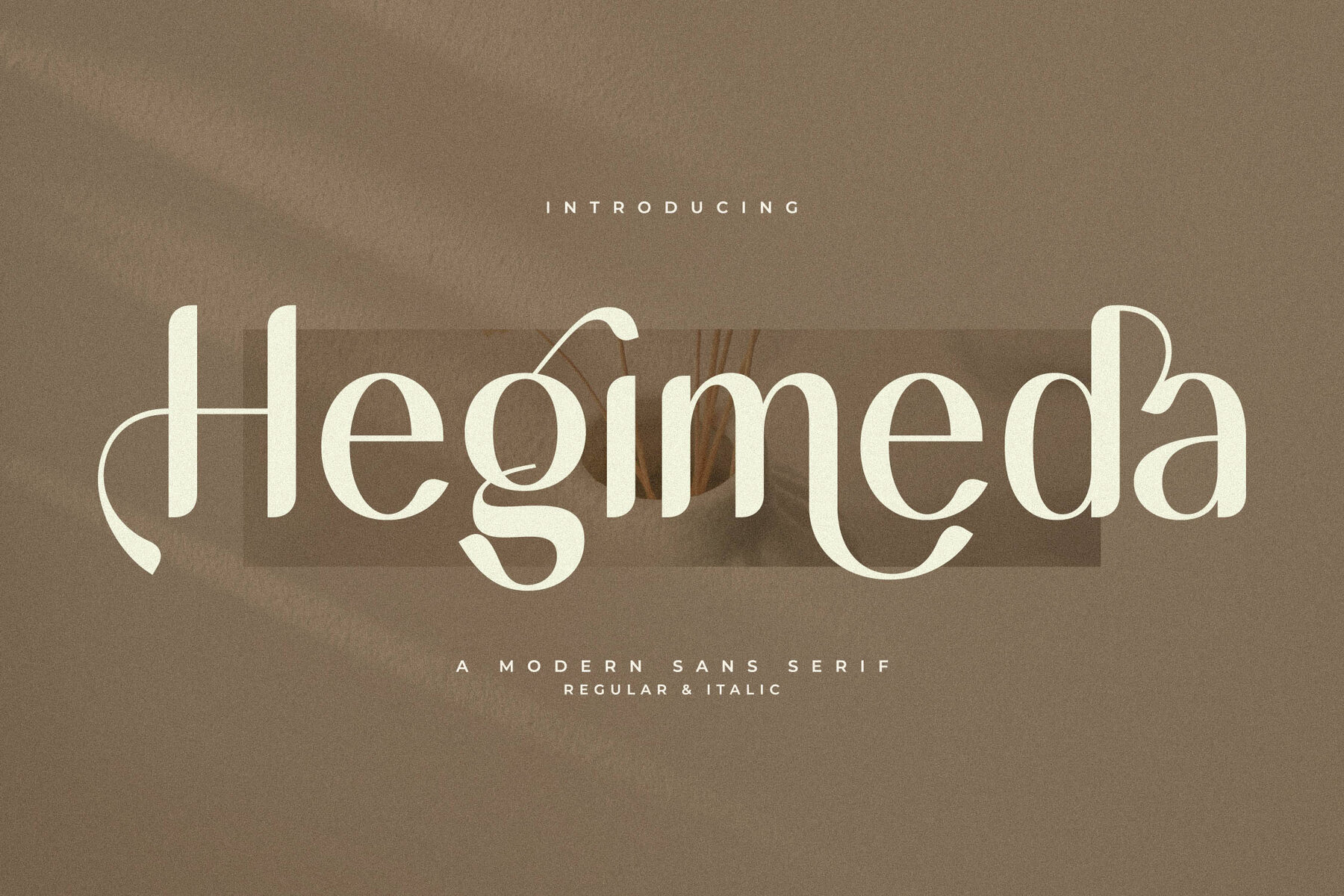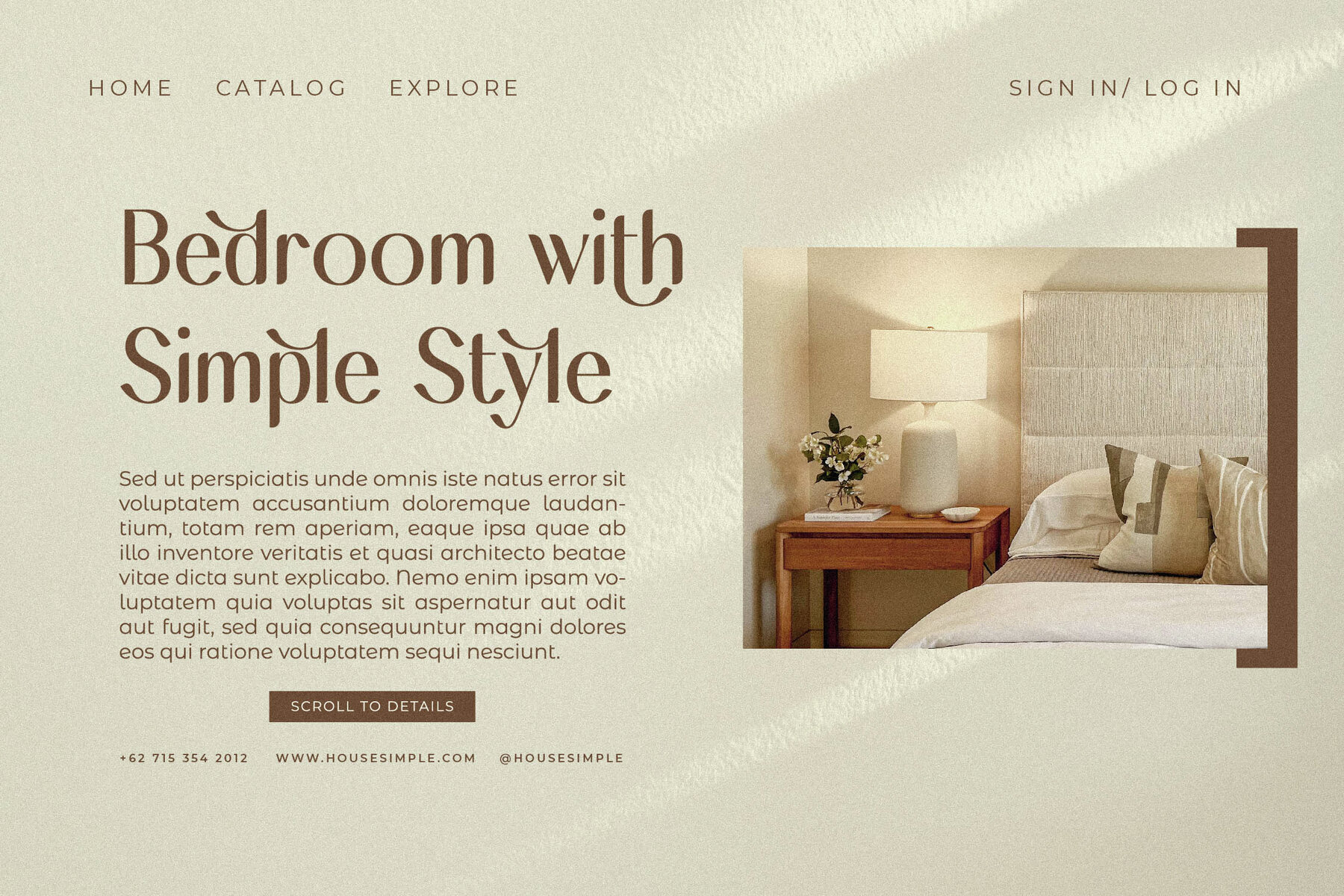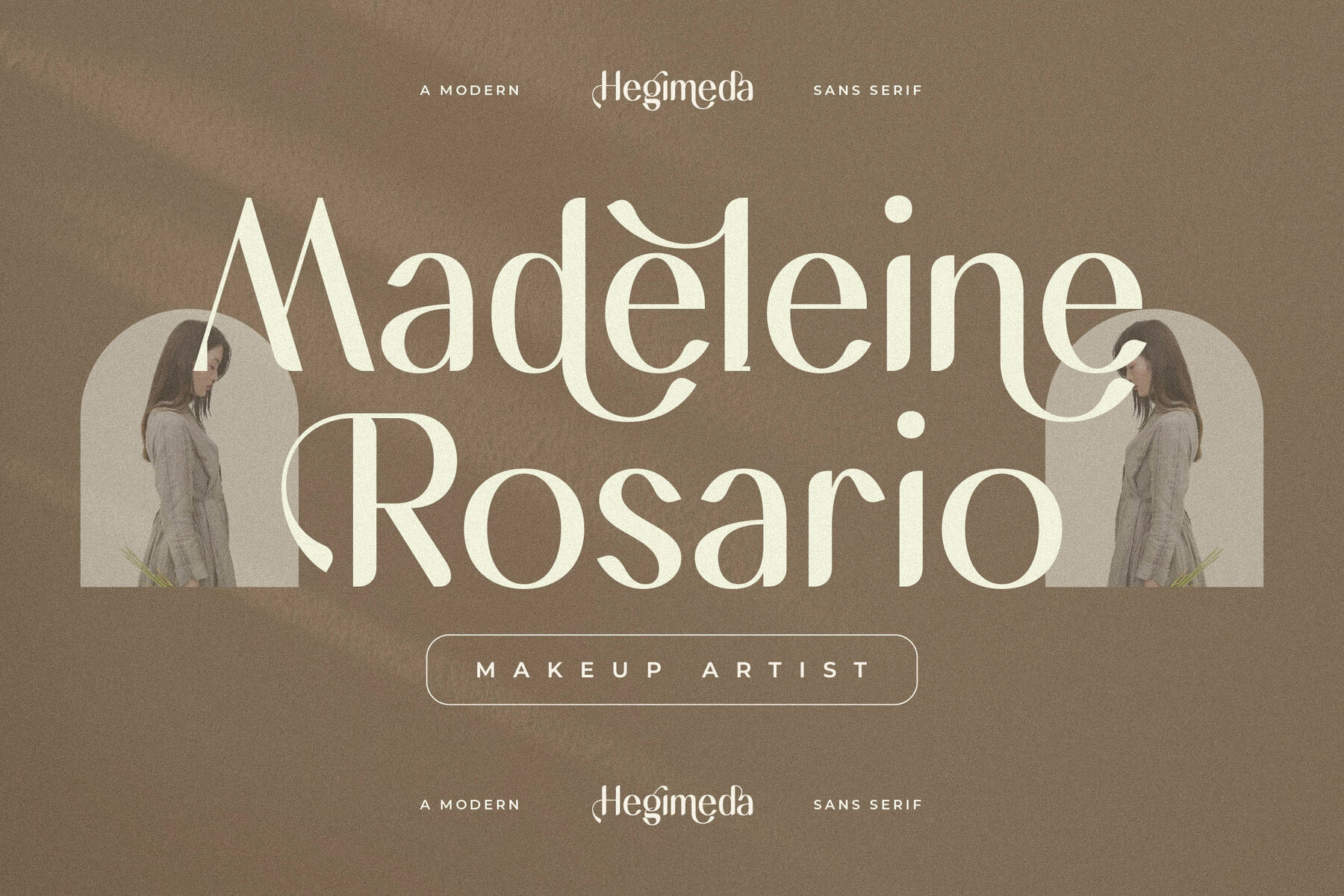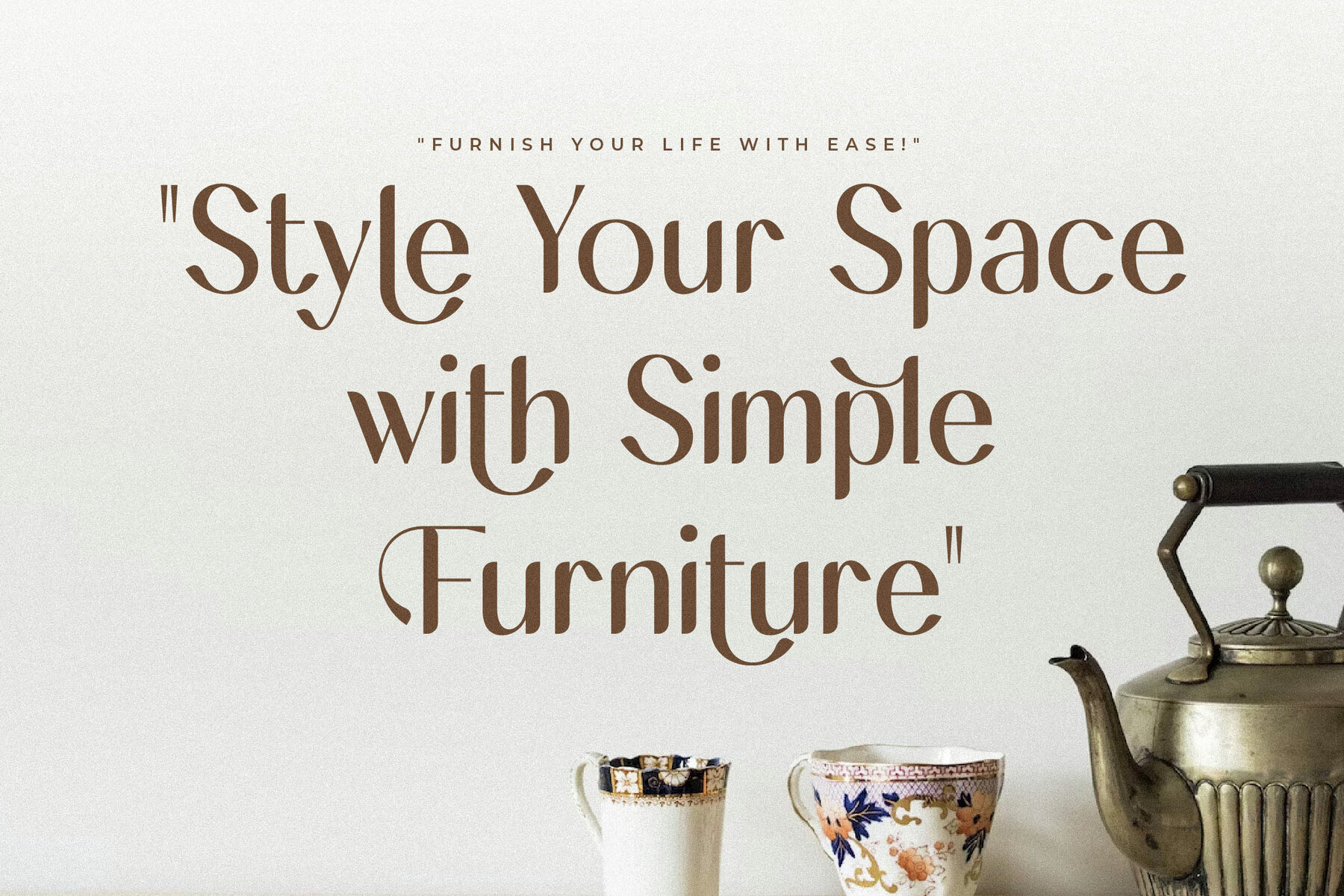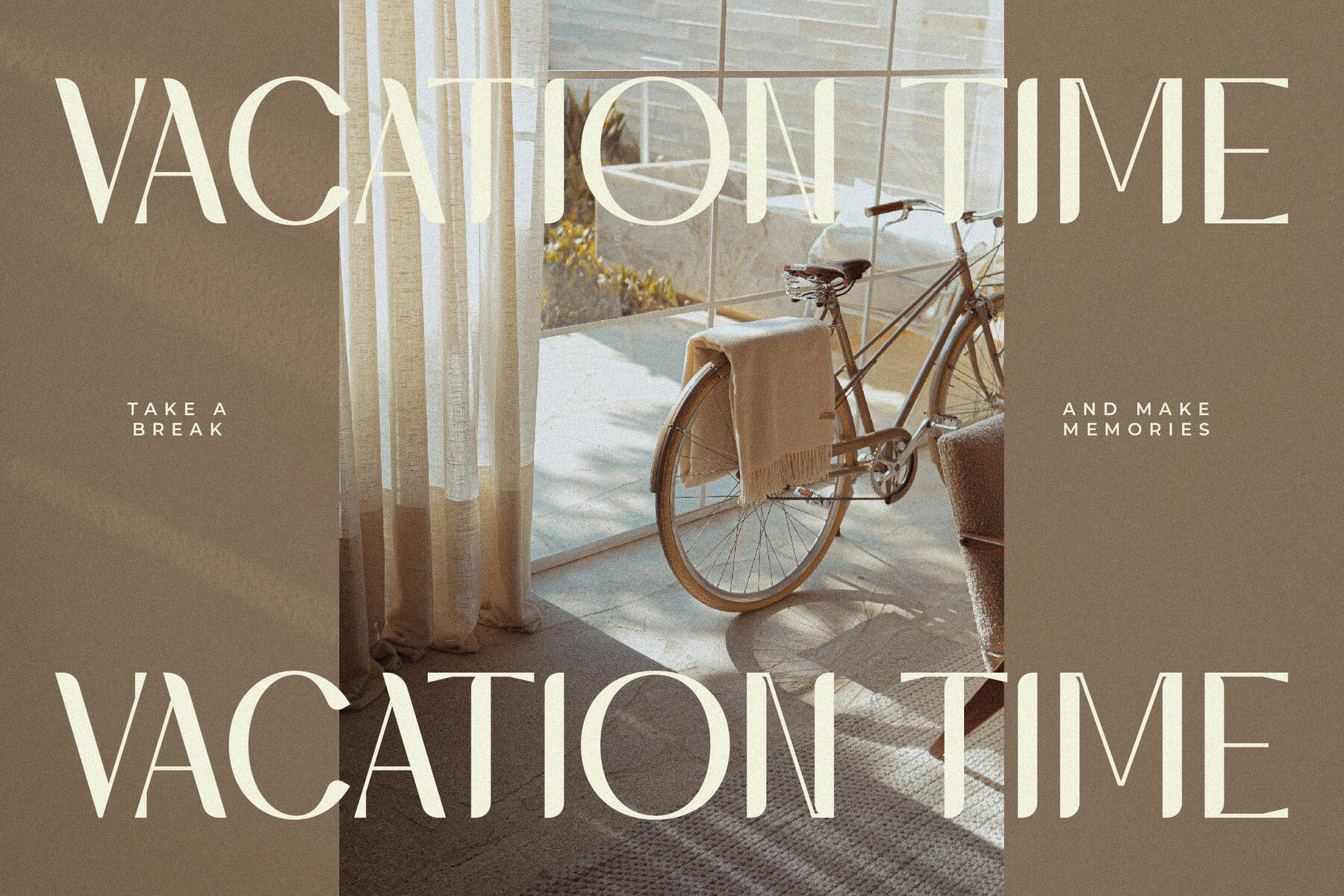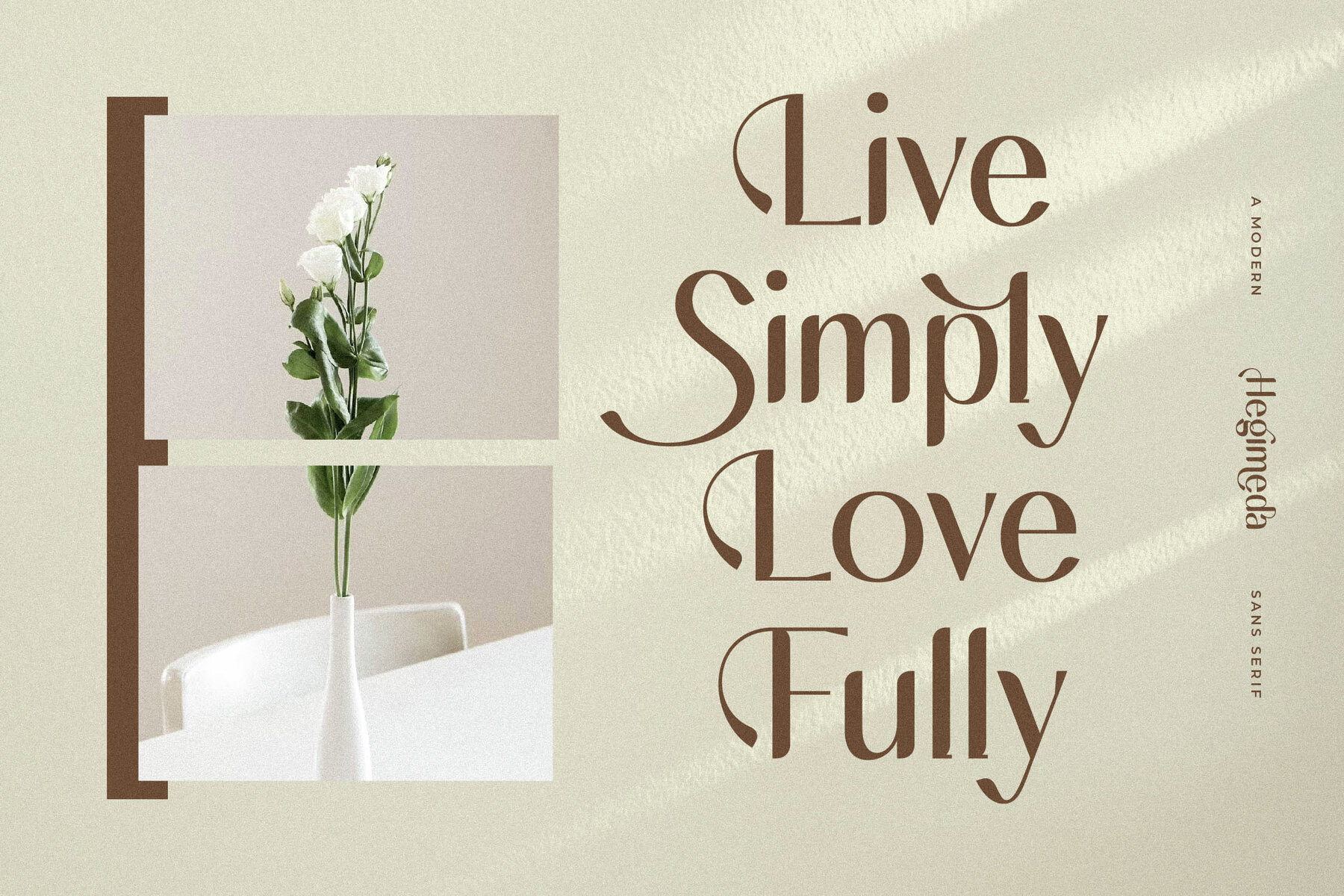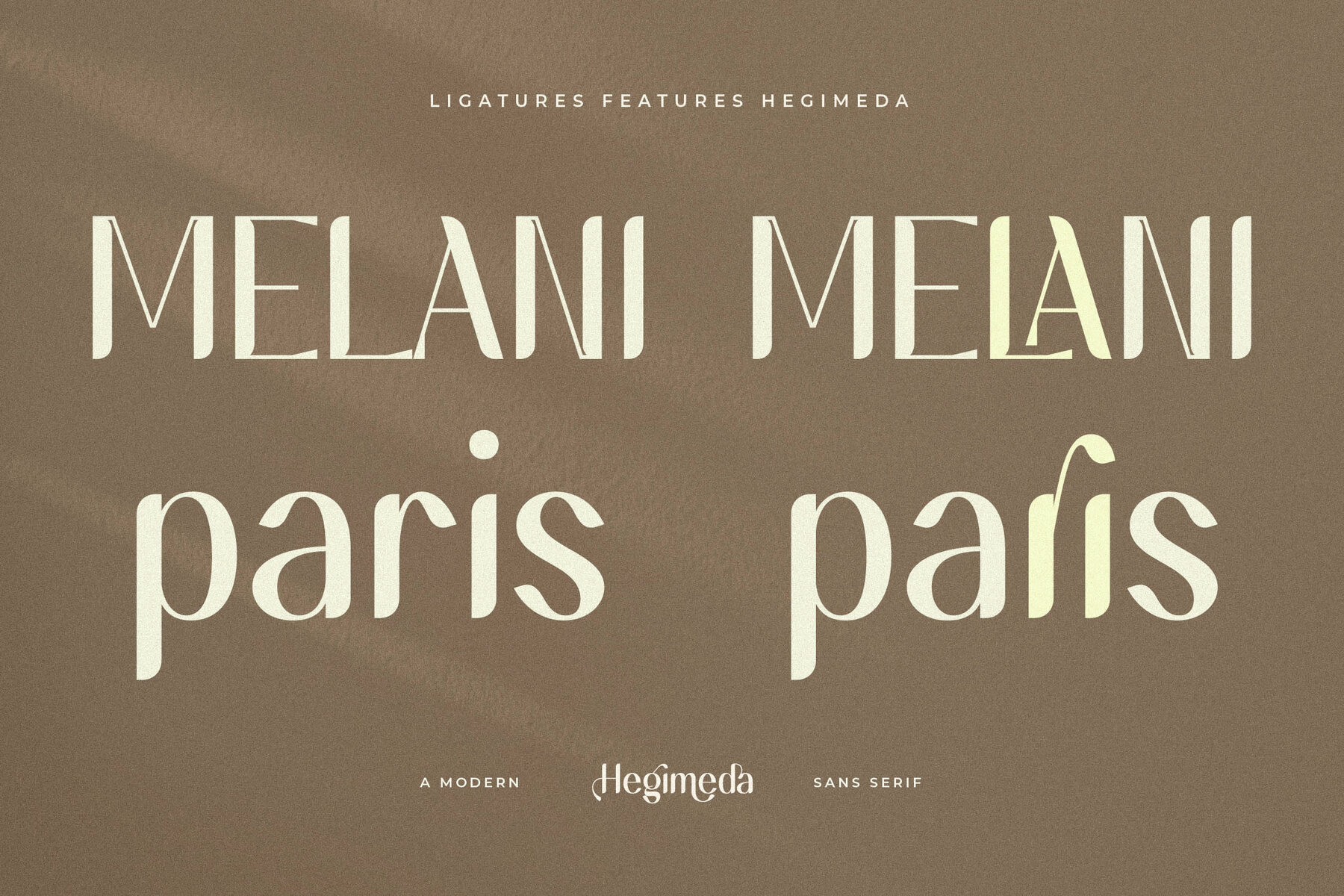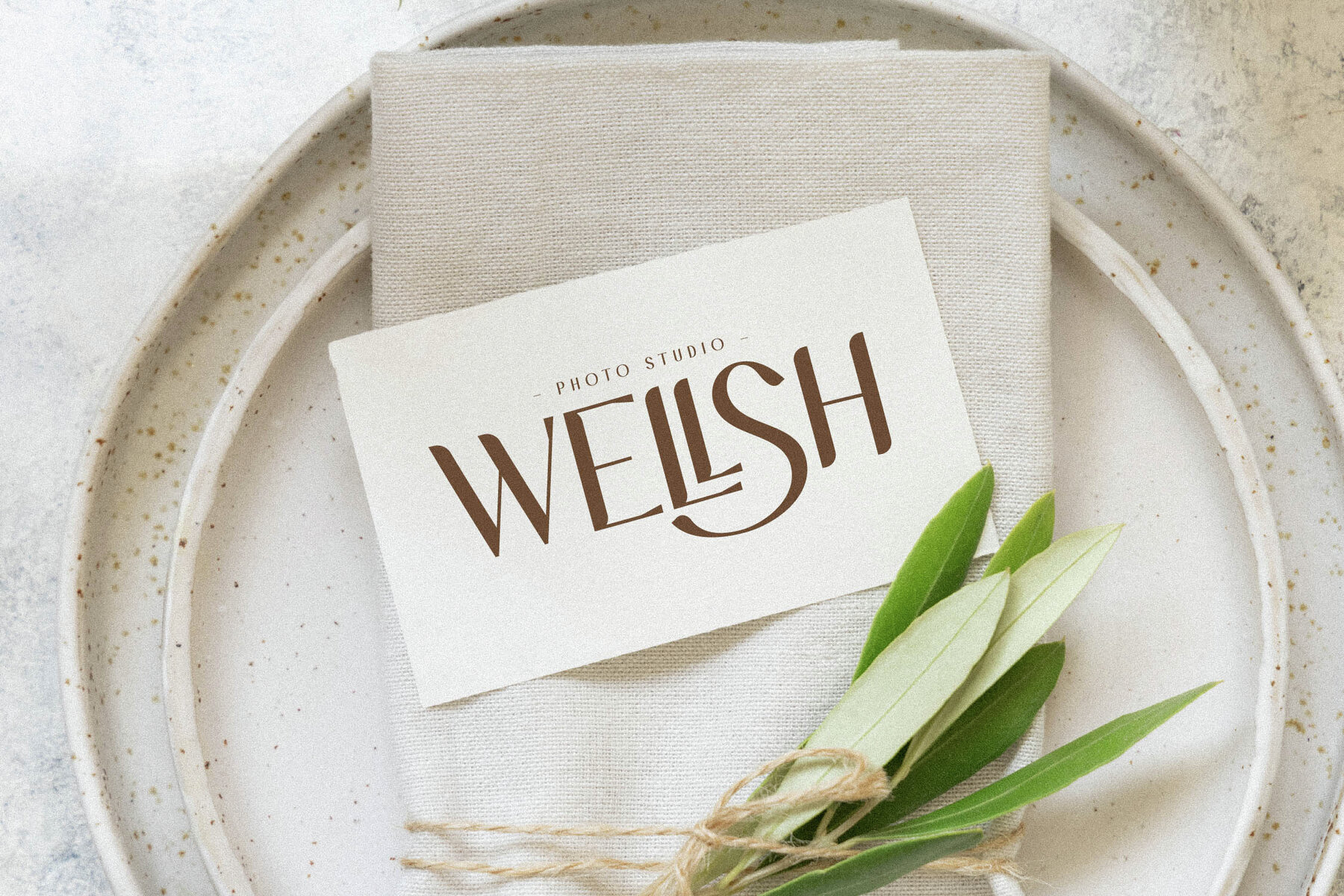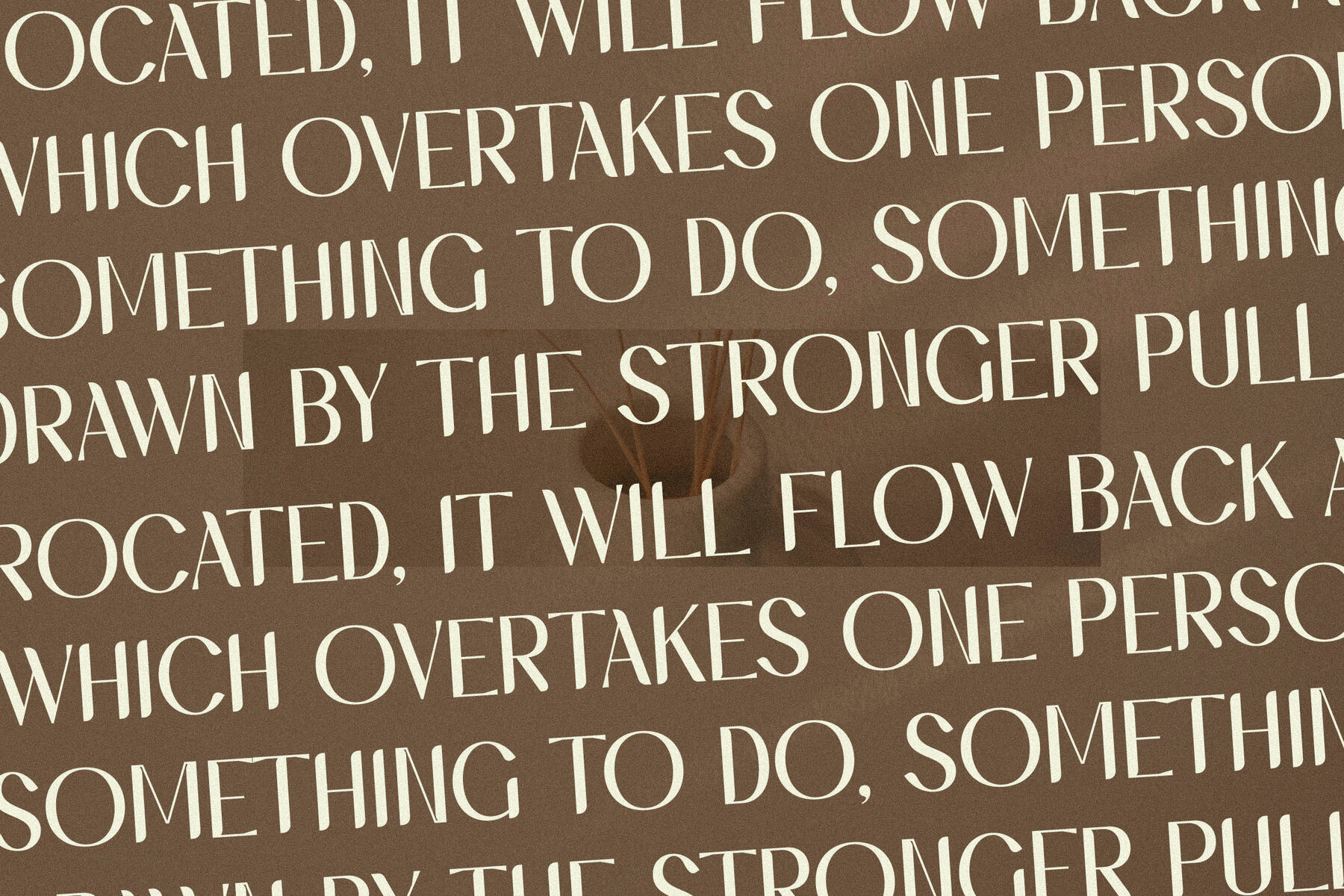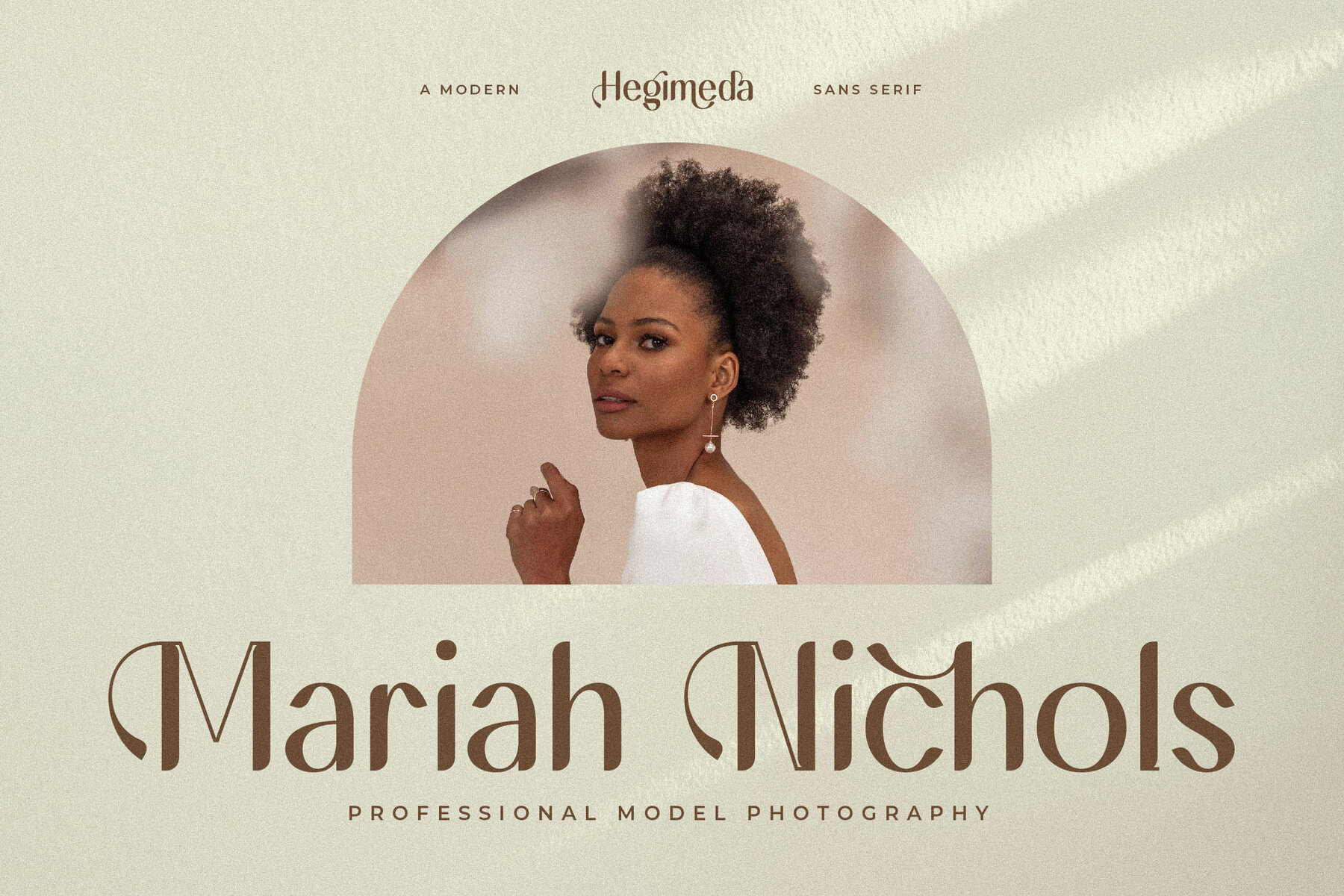
Hegimeda Font
Experience the refined elegance of the Hegimeda typeface, a masterpiece from Storytype Studio. This serif font blends modern aesthetics with classic influences, offering a unique style that exudes sophistication. Ideal for crafting luxurious logos, captivating book or movie titles, high-end fashion branding, striking magazine spreads, stylish apparel, and inspiring quotes.Hegimeda Typeface